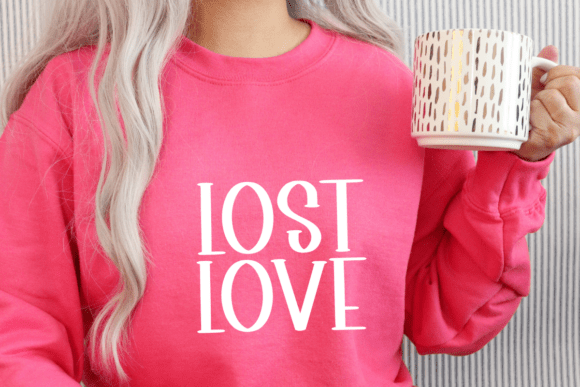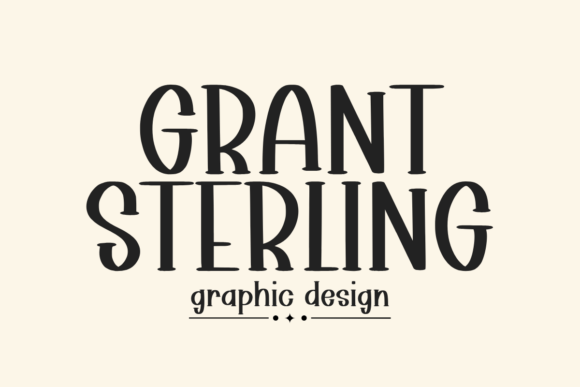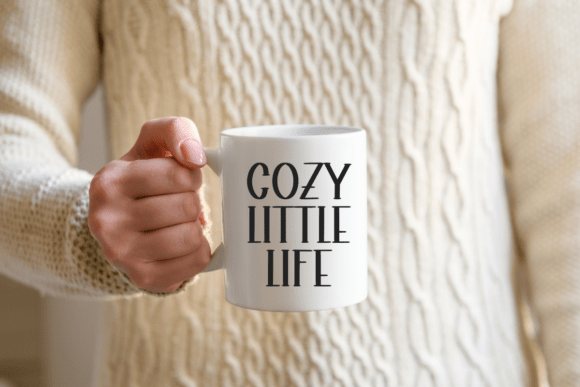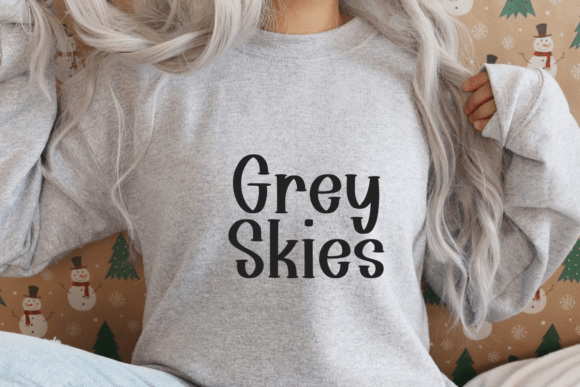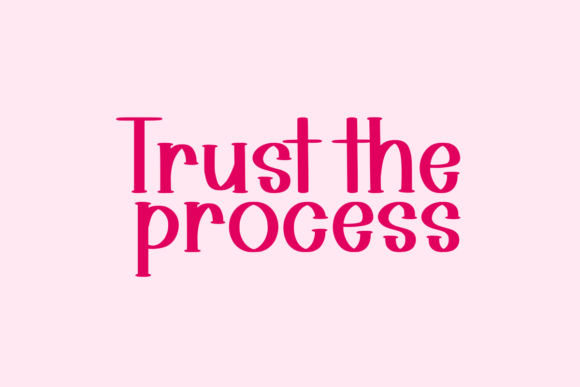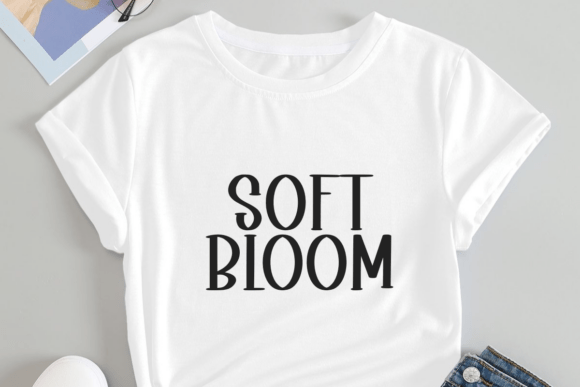
Get Ready to Deck the Halls with Awesome Festive Font
There’s nothing quite like the rush of creativity that comes with planning a festive event – the twinkling lights, the scent of fresh pine, and the sound of laughter filling the air. As you start brainstorming ideas for decorations, invitations, and graphics, one crucial element stands out: the typography. And that’s where Awesome Festive Font comes in – a tall, slender display font that injects a breath of fresh air into your creative projects.
This versatile font is designed to bring a touch of whimsy and personality to your designs, making it an exceptional choice for party invitations, event signage, and social media graphics. With its minimalist structure and slightly irregular character widths, Awesome Festive Font is sure to add a dash of magic to your festive designs. For designers looking to elevate their holiday projects, this font is a valuable asset that’s sure to make a lasting impression.
Awesome Festive Font Key Features
- Font Family: Awesome Festive Font is a unique, hand-drawn font family designed to evoke the spirit of the holiday season.
- Unique Characteristics: The font features intricate, hand-drawn illustrations and ornaments, making it perfect for creating eye-catching holiday designs, cards, and invitations.
Designer Review: Awesome Festive Font
Overall, I’d say the Awesome Festive Font is a fun, playful addition to any holiday-themed project. ✨ Here are some things that really work well:
- Unique Character Set: The font includes a wide range of festive symbols, from snowflakes to holly leaves, which can add a lot of visual interest to your design.
- Easy to Read: Despite its playful nature, the font is still easy to read, even at smaller sizes.
- Fun Pairing Options: The font comes in a variety of styles, from bold and bright to delicate and cursive, making it easy to find a pairing that fits your design.
- Not Ideal for Body Text: While the font is great for headings and titles, it’s not the best choice for body text, as it can be a bit too ornate and distracting.
- Limited Support for Non-English Characters: The font may not support non-English characters as well as other fonts, which could be a problem if you’re working on a project with a global audience.
Overall, I think the Awesome Festive Font is a great choice for holiday-themed projects, but it may not be the best choice for every project. With a little creativity and experimentation, you can use this font to create some truly unique and eye-catching designs. ⚠️ Just be mindful of its limitations and use it wisely.
Use Awesome Festive Font to add a festive touch to your designs, such as:
– Holiday cards and invitations
– Party decorations and signage
– Social media posts and graphics
– Greeting cards and gift tags
To get the most out of Awesome Festive Font, try combining it with other fonts for a unique look, and experiment with different font sizes and colors to create visual interest.